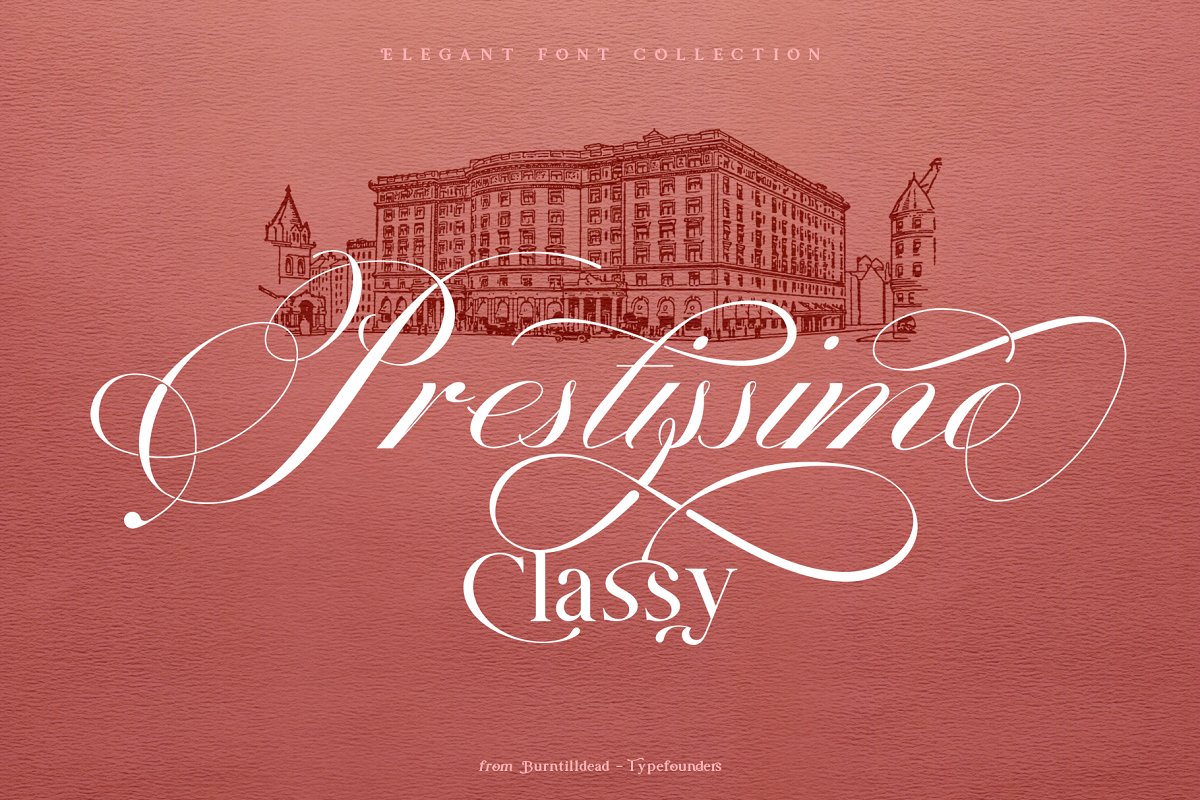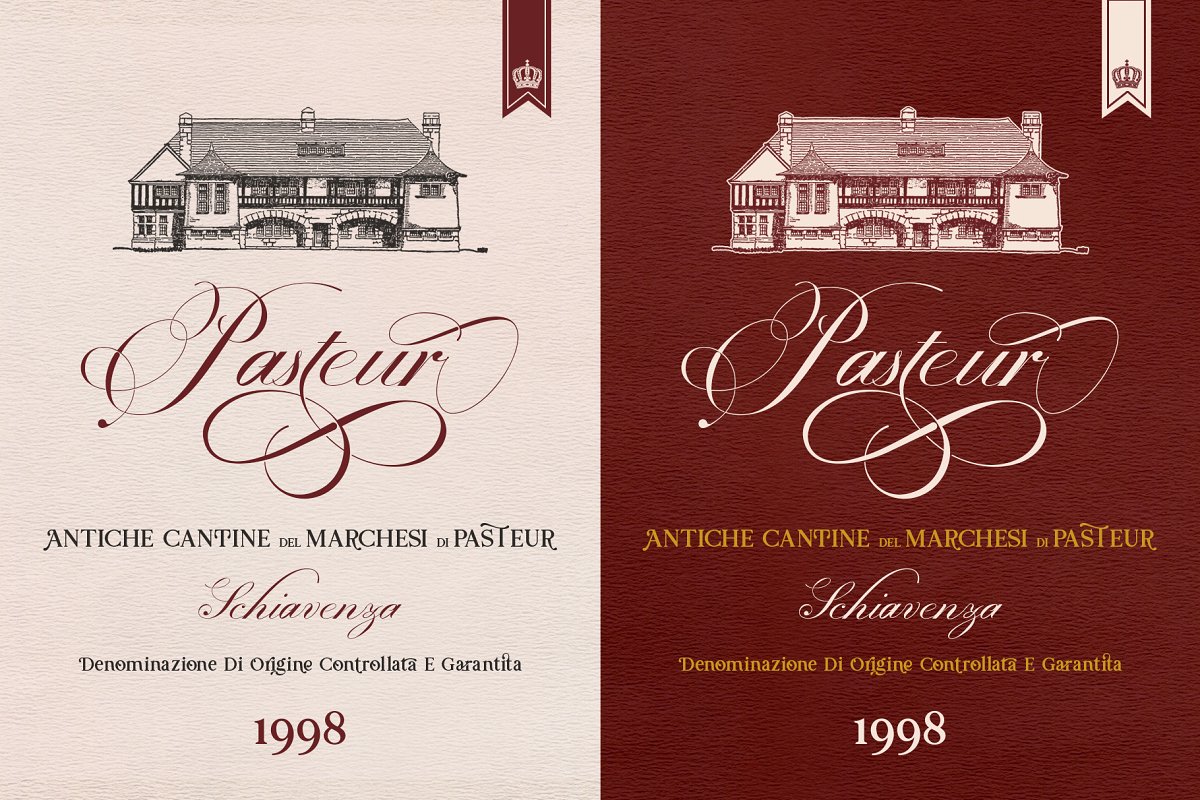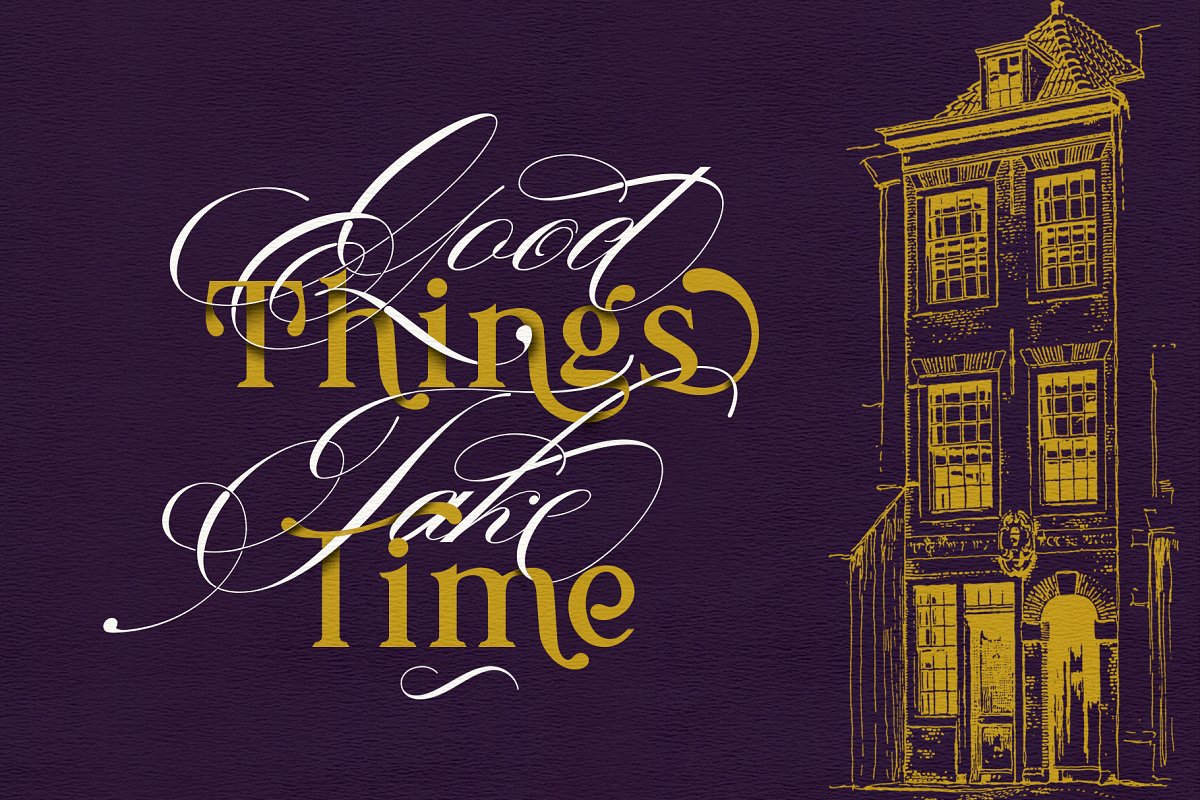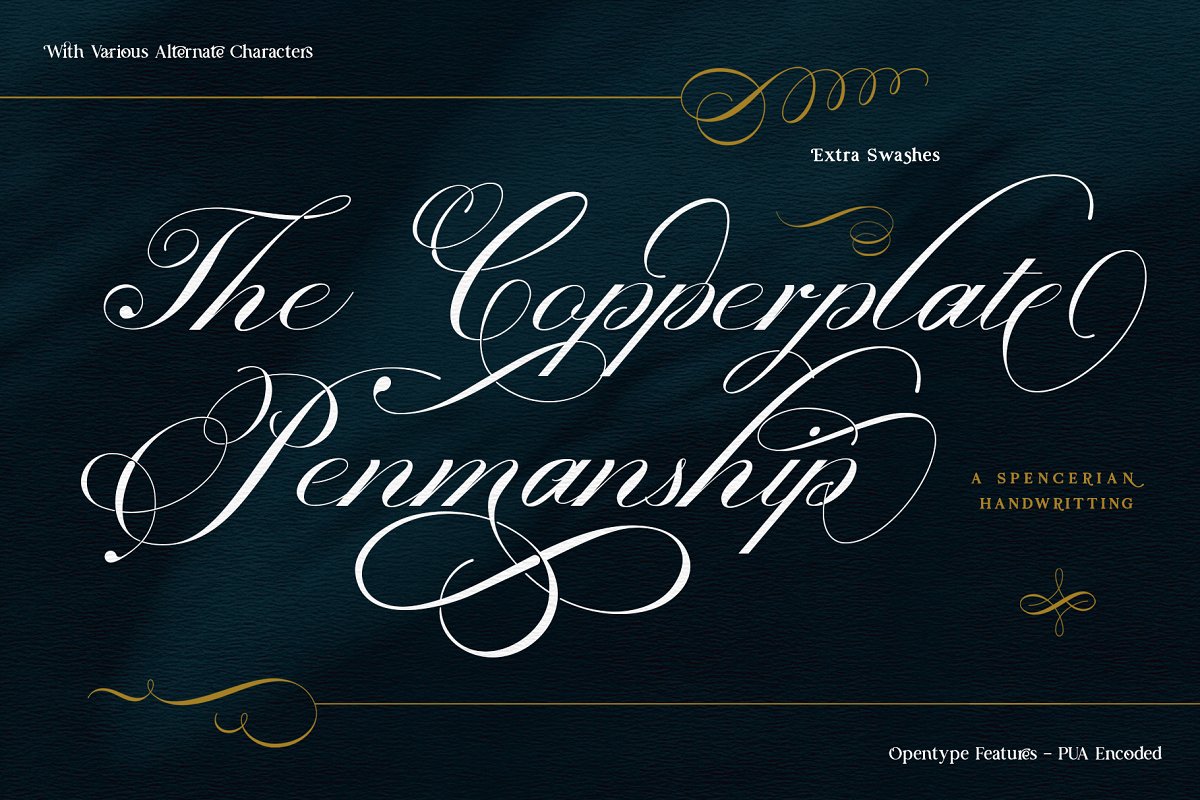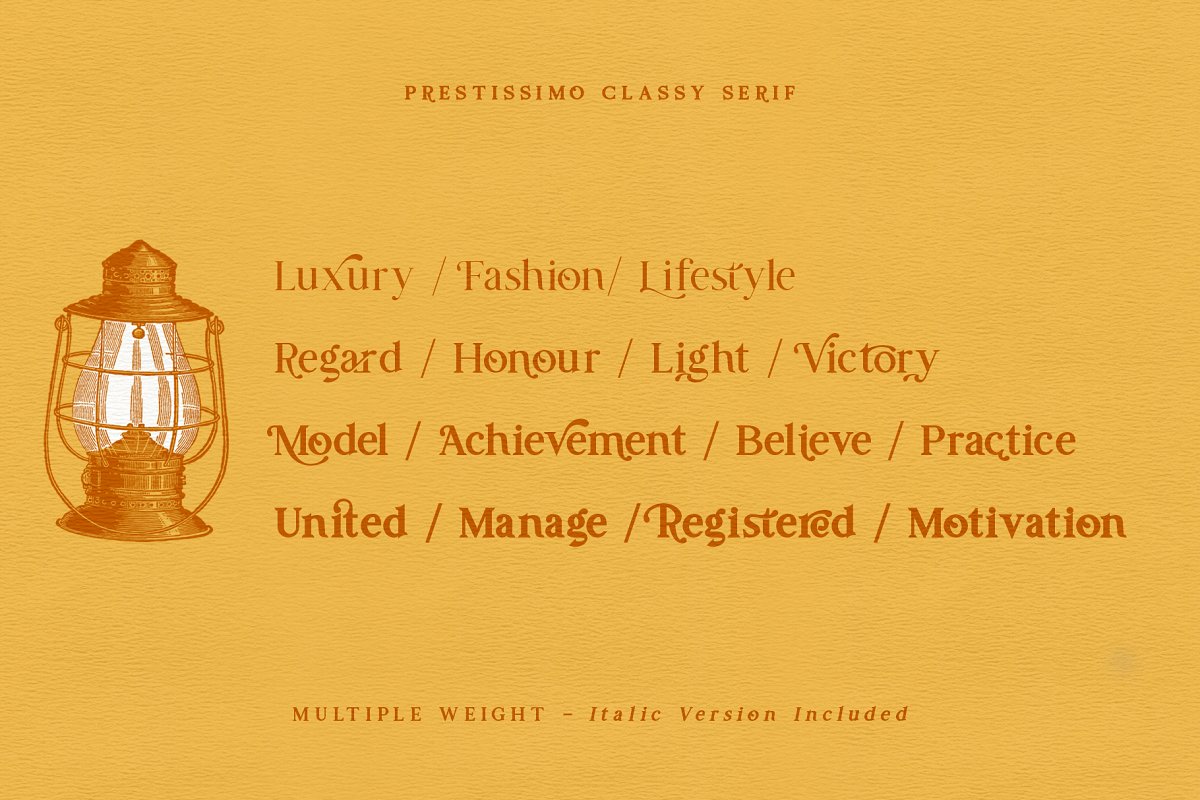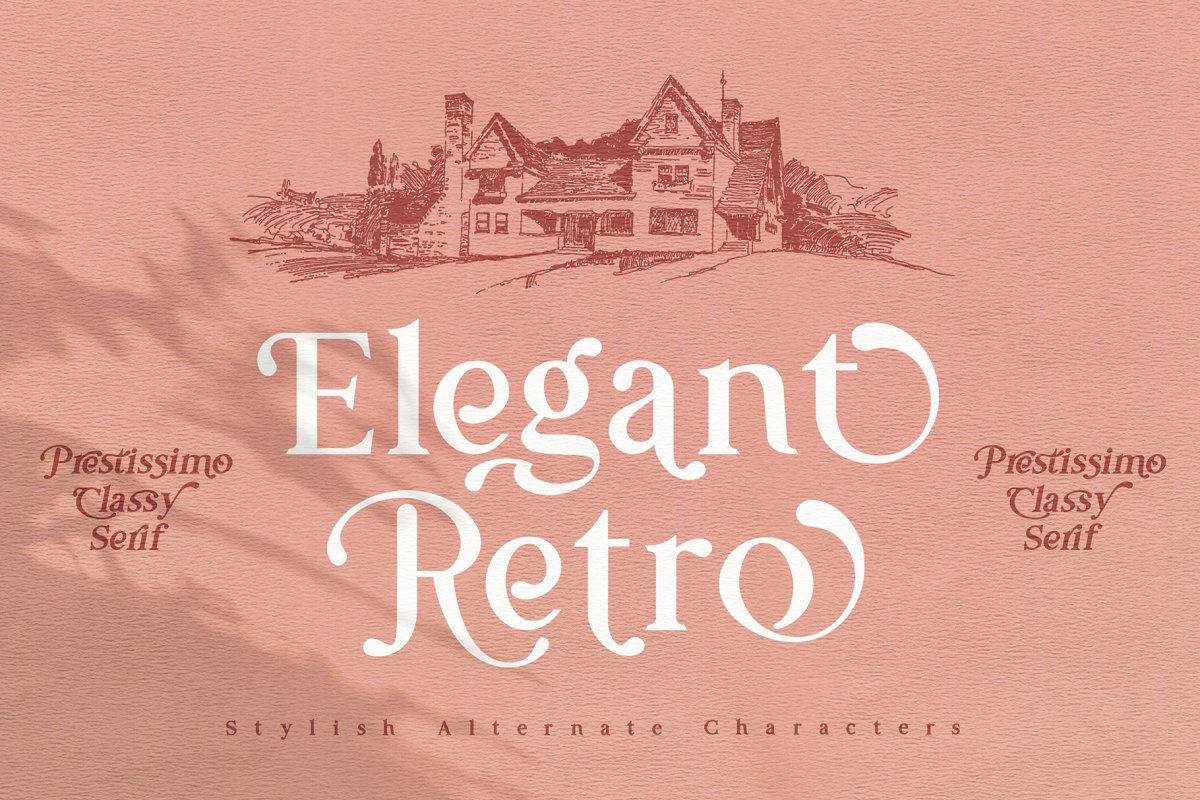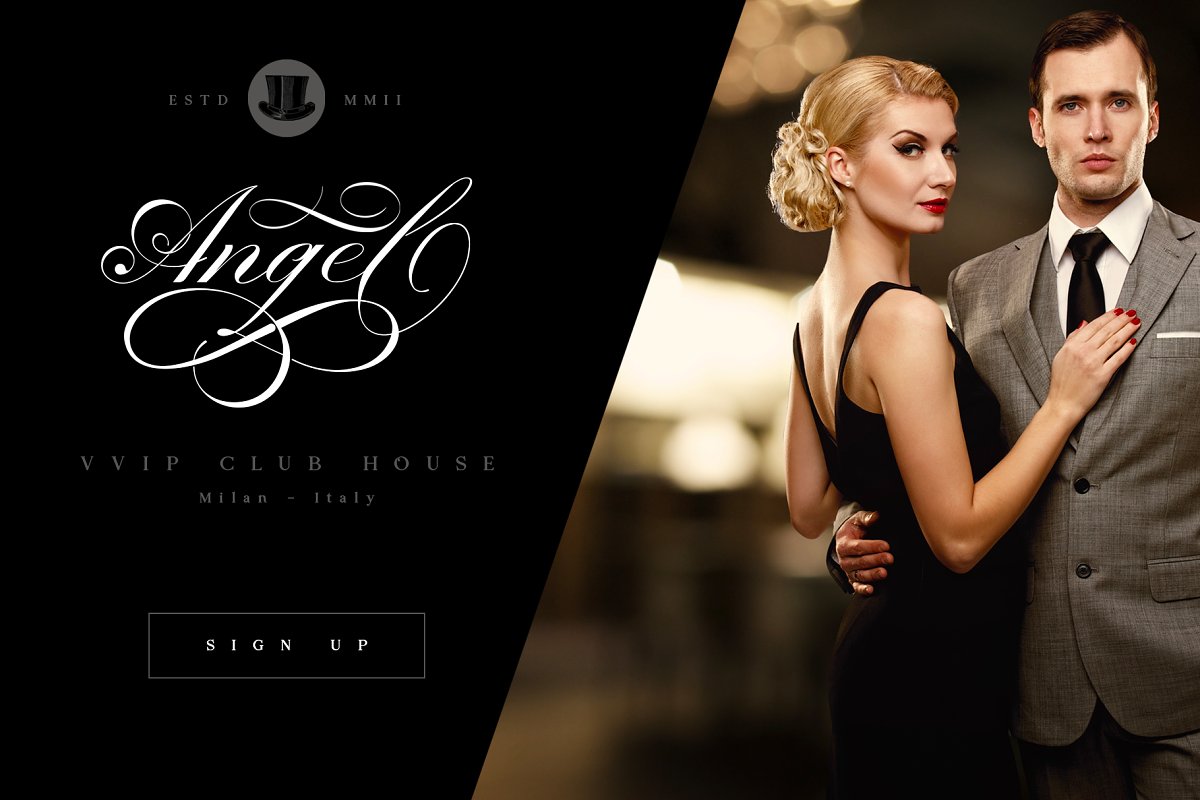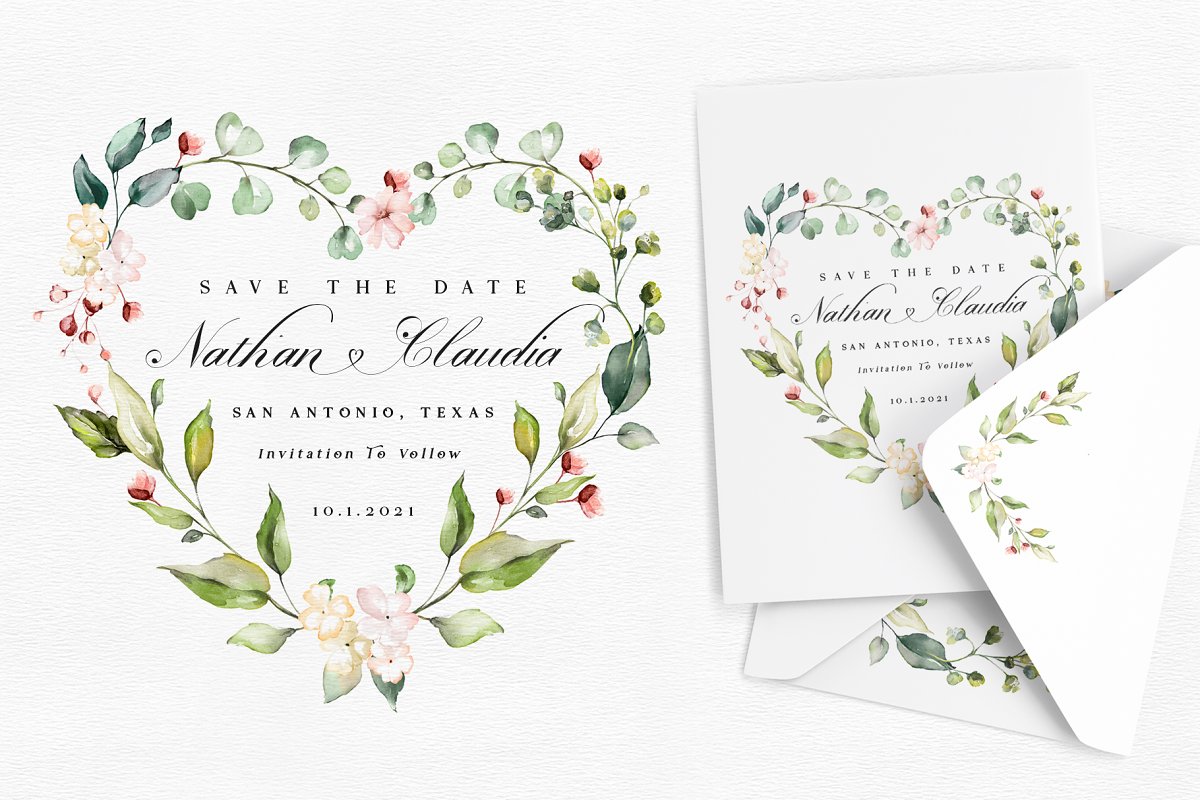
Prestissimo Classy is a combination font package between copperplate script and retro serif style, A perfect combo for you who need elegant, stylish, retro, casual & professional look on the same plate, Save your priceless time with the best solution! The easiest way to bring professional calligrapher, Penmanship or spencerian script, Now you have this unique opportunity to try the early American handwriting
Really bring classy vibes & easy to use, Hundred of possibility looks, Powered with opentype features & PUA encoded, Our Prestissimo Classy is feature with contextual alternates and stylistic sets to broaden your possibilities – Common and extended ligatures are included
The set is supplemented by flourish ornaments to round out your design, Each style feature full Western Latin character support (multi language), formatted in OpenType (OTF) and will work on your Machintosh or PC, Bonus: Ornament font (Flourish swashes)